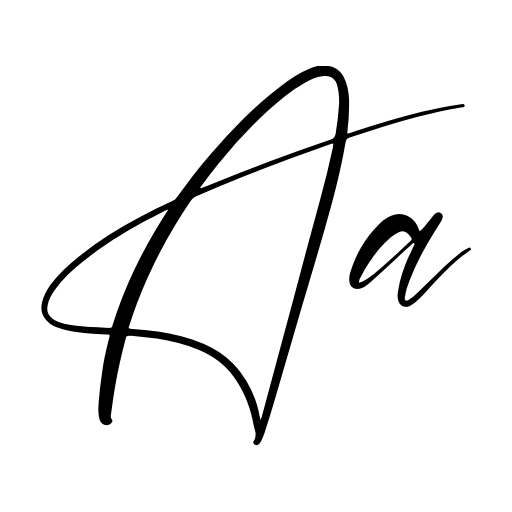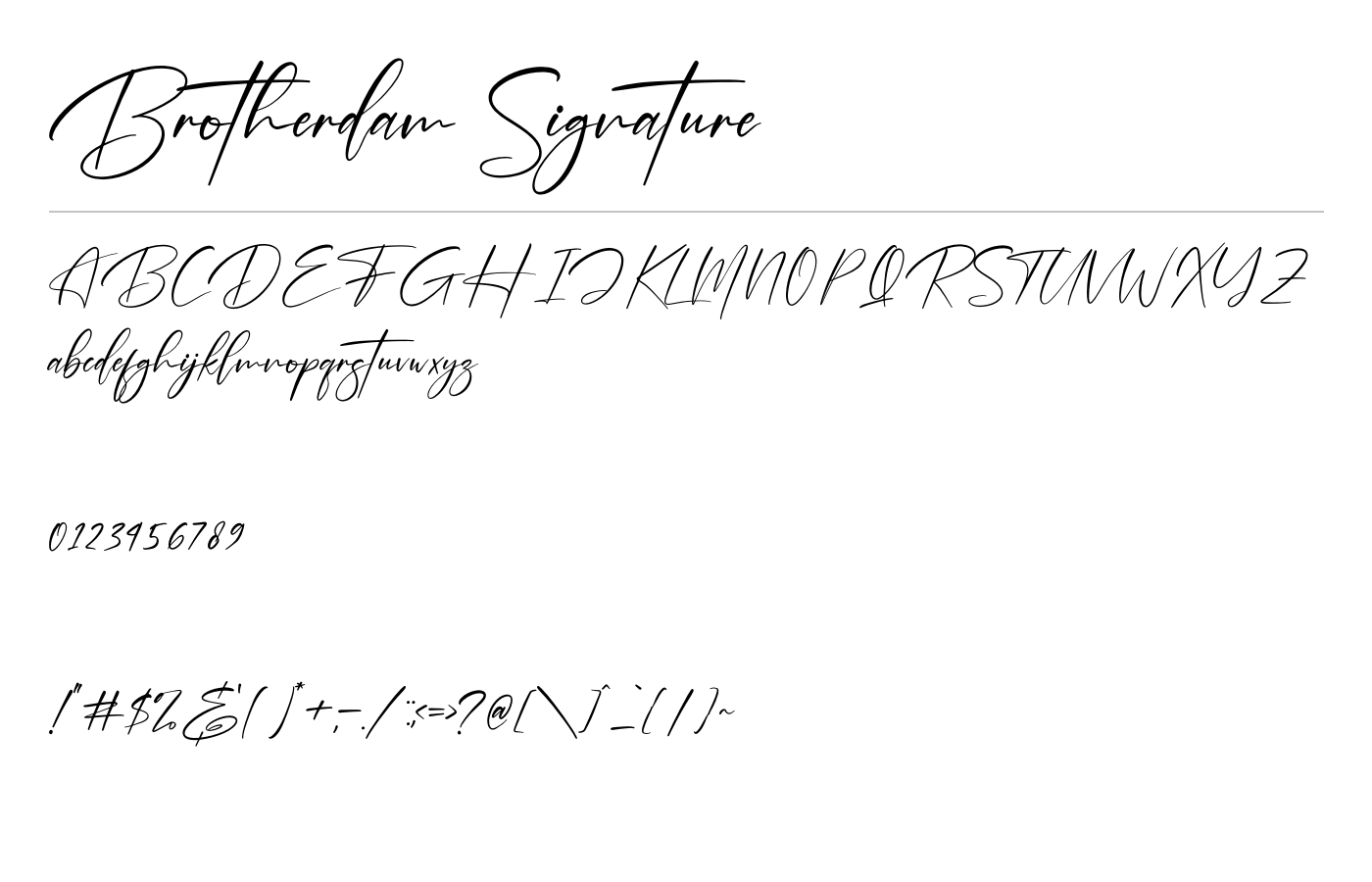
Brotherdam Signature is an elegant, handwritten script font with a light and flowing style that mimics natural penmanship. Its tall, slender letterforms and delicate stroke contrasts give it a refined yet approachable feel, perfect for luxury branding, personal invitations, and stylish logos. The font’s graceful curves and clear legibility make it ideal for adding a sophisticated, personal touch to any creative project.
Brotherdam Signature Font
About Brotherdam Signature Font